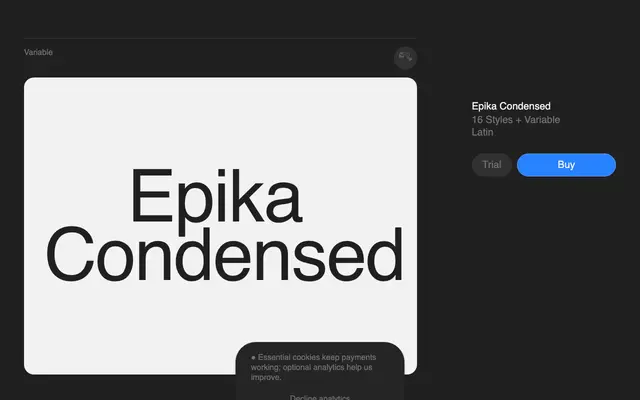
Epika Condensed
Superior Type · Rostislav Vaněk
A condensed serif with 16 styles and variable font support, mixing considered detail with a composed overall structure across eight weights.
Designed by Rostislav Vaněk with collaboration from Matyáš Machat and Petr Kučera, Epika Condensed runs from ExtraLight to Black with matching italics throughout. The foundry describes its character as a meeting of British typographic discipline and Italian sensibility, expressed through subtle quirks and unexpected letterform decisions that sit within a balanced construction. Nineteen stylistic sets and a broad OpenType feature set including small caps, swash, oldstyle figures and discretionary ligatures give it considerable flexibility for editorial and display use.
A serif typeface with condensed proportions and playful detail work; the foundry describes a blend of British typography and Italian sensibility, placing it in a contemporary, character-rich serif tradition rather than any strict historical model.